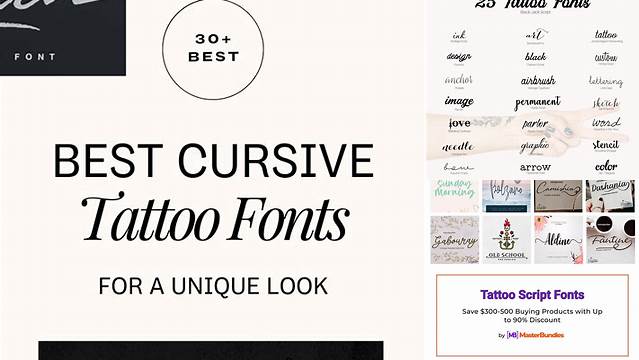
Free Script Tattoo Fonts: Your Ultimate Guide
Hey everyone! Are you itching to get a tattoo but don't know where to start with the font? Well, you're in luck! This guide is all about script tattoo fonts free! We'll dive deep into the world of calligraphy, exploring different styles, where to find these amazing fonts without spending a dime, and how to make sure your chosen font looks absolutely stunning on your skin. Whether you're a seasoned tattoo aficionado or a newbie considering your first ink, understanding fonts is crucial. So, grab a coffee, get comfy, and let's get started on this font-tastic journey!
Choosing the Perfect Script Tattoo Font for You
Choosing the perfect script tattoo font is like finding the perfect partner – you want something that clicks, complements your personality, and will last a lifetime (or at least the lifetime of your tattoo!). Several factors come into play when selecting a font. First and foremost, consider the message you want to convey. Do you want something elegant and flowing, like a classic cursive? Or something more edgy and modern, perhaps with a touch of graffiti-inspired flair? The style of the font will greatly impact the overall aesthetic of your tattoo. Think about the sentiment you want to express. Is it a name, a quote, a special date? The length of the text also matters. Longer phrases may require a font with a higher legibility and a slightly larger size to avoid becoming a blurry mess on your skin. Also consider the placement of the tattoo. A font that looks fantastic on your forearm might not translate well to your ribs or ankle. Size and space constraints are essential considerations. Then there's personal preference, of course! Do some research and collect various font styles to assess which ones resonate with you the most.
Remember, finding a script tattoo fonts free option that aligns with your vision is not only possible but also an exciting part of the creative process. Do you want something that seems simple and classic or something that is more elegant and creative? Taking the time to find the right match is a good starting point.
The World of Free Script Tattoo Font Styles
Let's explore some popular script tattoo fonts free styles to get your creative juices flowing. There is the classic cursive script, with its elegant and flowing lines, evoking feelings of sophistication and timelessness. These are often used for names, quotes, or anything with a personal touch. Then you have the brush script fonts. Brush scripts mimic the strokes of a paintbrush, offering a more casual, artistic feel. These fonts are great for adding a touch of personality and visual interest. Another great option is the modern script, which leans towards a contemporary aesthetic. They often feature clean lines and geometric shapes, making them ideal for those who appreciate a minimalist style. You can also explore handwritten script fonts that replicate actual handwriting, giving a more personal and intimate look. When you are trying to look for a script tattoo fonts free options, it's worth knowing there are many varieties to consider. Do not be afraid to experiment.
Choosing the right script tattoo font is a journey of exploration. The more time you spend researching and experimenting, the better you'll understand what kind of fonts resonate with your style. Think of this as a fun adventure and a chance to get creative!
Where to Find Amazing Free Script Tattoo Fonts